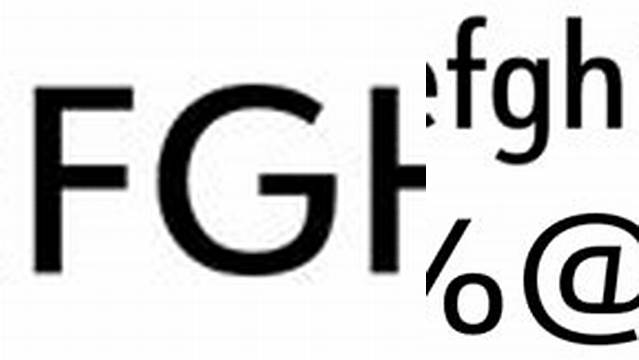
What is the URW Form Medium Font?
First things first, let's get acquainted. The URW Form Medium font is a member of the URW Form family, known for its clean, modern, and highly legible design. Think of it as the workhorse of fonts – it's reliable, looks great in various applications, and gets the job done without fuss. It's a sans-serif font, meaning it lacks the small decorative strokes (serifs) at the end of each letter, giving it a sleek, contemporary feel. This makes it incredibly versatile for both print and digital media.
The "Medium" in the name refers to its weight. It's not too bold, not too light – it sits perfectly in the middle, offering a good balance between readability and visual impact. This makes it ideal for body text, headings, and everything in between. It's a font that won't distract from your message; rather, it will help enhance it. The URW Form Medium font boasts excellent readability, making it suitable for extended reading, so it's a great choice for websites, documents, and reports. Its neutral character also makes it blend well with other fonts, so you can mix and match to create unique design aesthetics. Its clean lines and uncomplicated design make it a timeless choice that will stay current as design trends change. Because it is free of any overly stylistic elements, you can use it confidently in a range of different projects. This font isn't just about aesthetics; it's about functionality. The URW Form Medium font is designed to deliver your message in a clear, concise, and professional way. It's a dependable choice, and once you begin using it, you'll start to wonder how you ever managed without it. Whether you're a seasoned designer or just starting, you'll find that URW Form Medium is an excellent and practical tool for your project. The font is an excellent choice, as it offers a modern and elegant look and is also readable and easy to use.
Tips for Effective Use of URW Form Medium
- Pairing the Font: Since it's a clean, modern sans-serif, the URW Form Medium font plays well with many other fonts. Try pairing it with a serif font for headings and body text or a contrasting sans-serif for a more dynamic look. Experiment with different combinations to find the perfect match for your project.
- Font Sizes and Weights: Use different font sizes and weights to create visual hierarchy. Use a heavier weight for headings and a lighter weight for body text. This helps guide the reader's eye and makes your content easier to digest. Ensure the font size is appropriate for your intended audience and the platform you're designing for.
- Spacing and Kerning: Pay attention to the spacing and kerning (the space between individual letters). Tighten up the spacing for a more modern look or loosen it for better readability, particularly in larger blocks of text. Most design software allows you to adjust these settings easily.
- Color and Backgrounds: The URW Form Medium font looks great in a variety of colors and on different backgrounds. However, ensure enough contrast between the text and the background. This is particularly important for readability. Always prioritize legibility to make your designs accessible.
URW Form Medium Font: The Perfect Choice
In conclusion, the URW Form Medium font is an excellent choice for a wide range of design projects. Its clean, modern design, excellent readability, and versatility make it a great option for both print and digital media. With free downloads readily available from several reputable sources, it's easy to add this font to your design toolkit. Remember to always check the licensing terms before use and follow the installation instructions to get the font running on your computer. So, go ahead, download the URW Form Medium font, and start creating beautiful, professional designs today! Happy designing, folks!